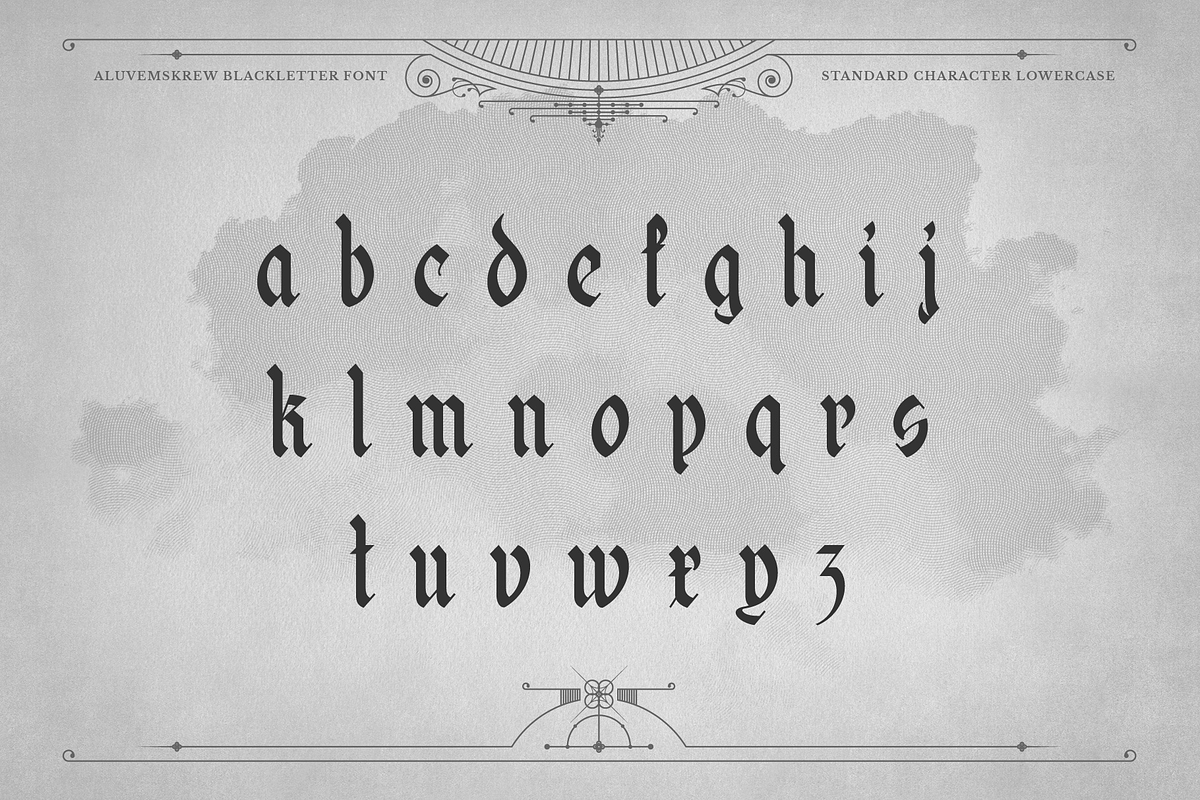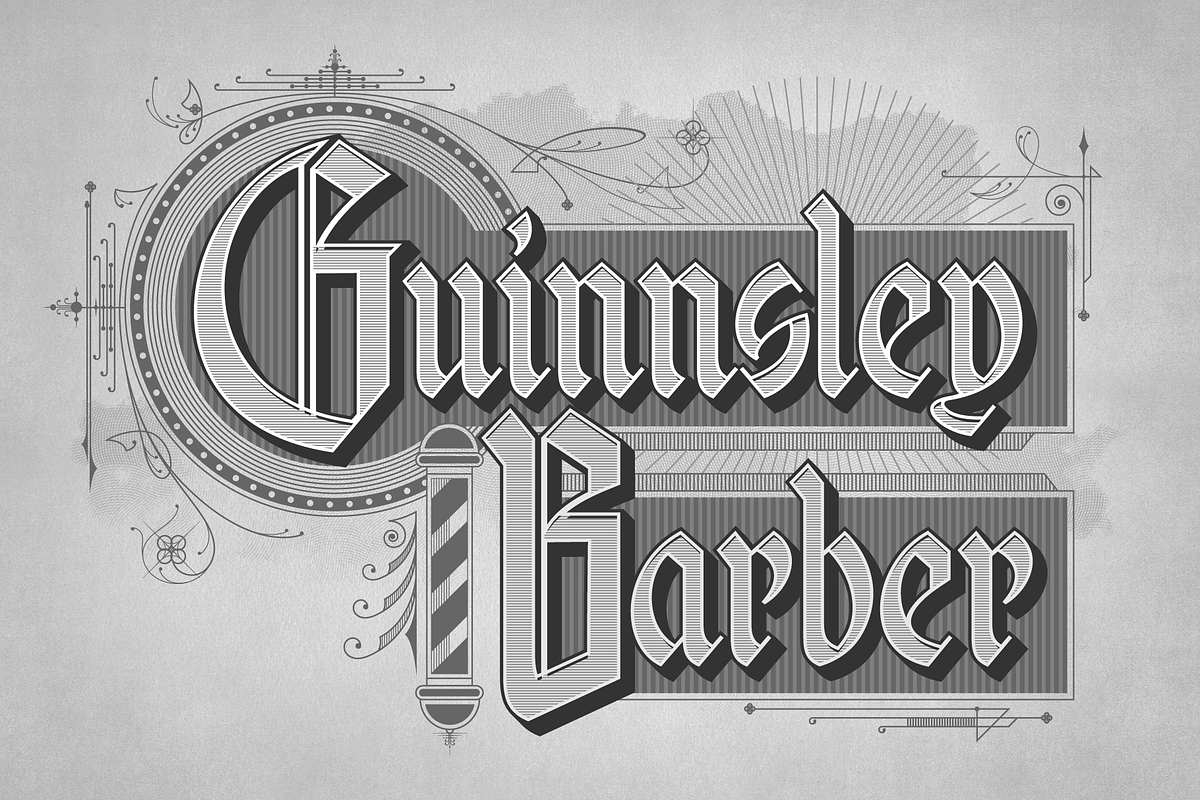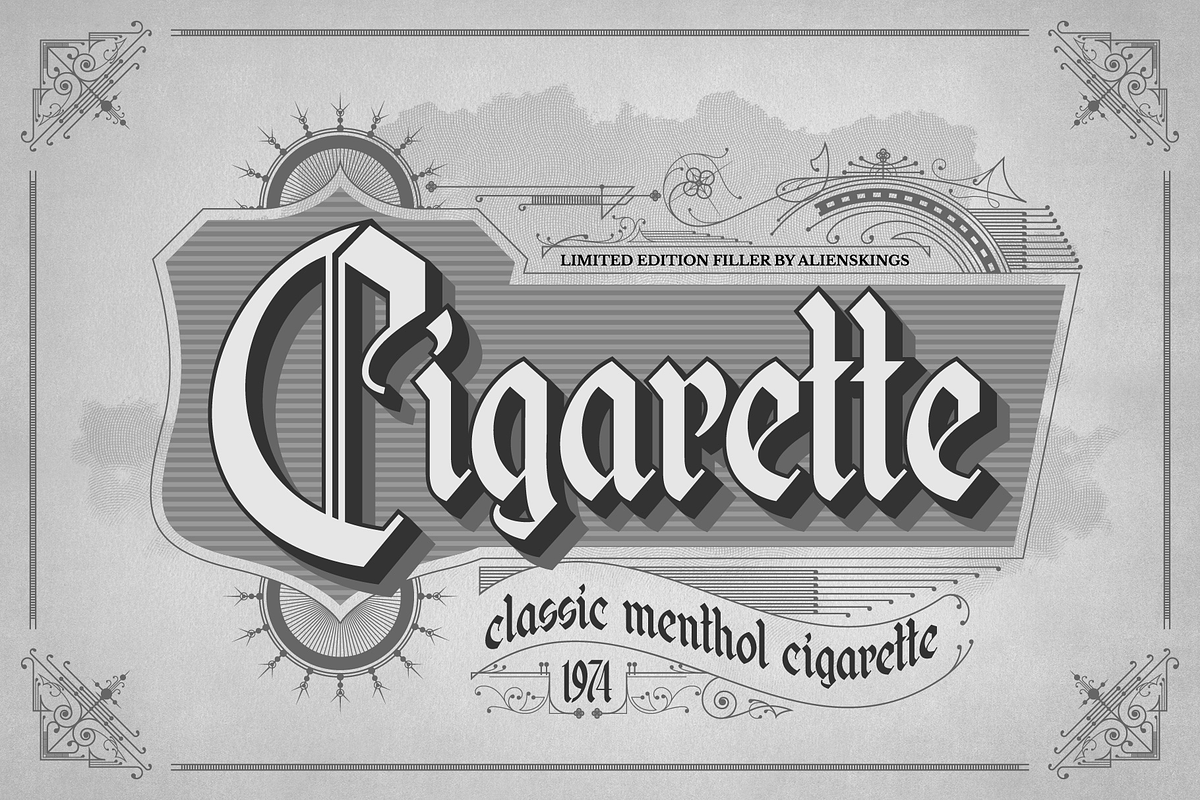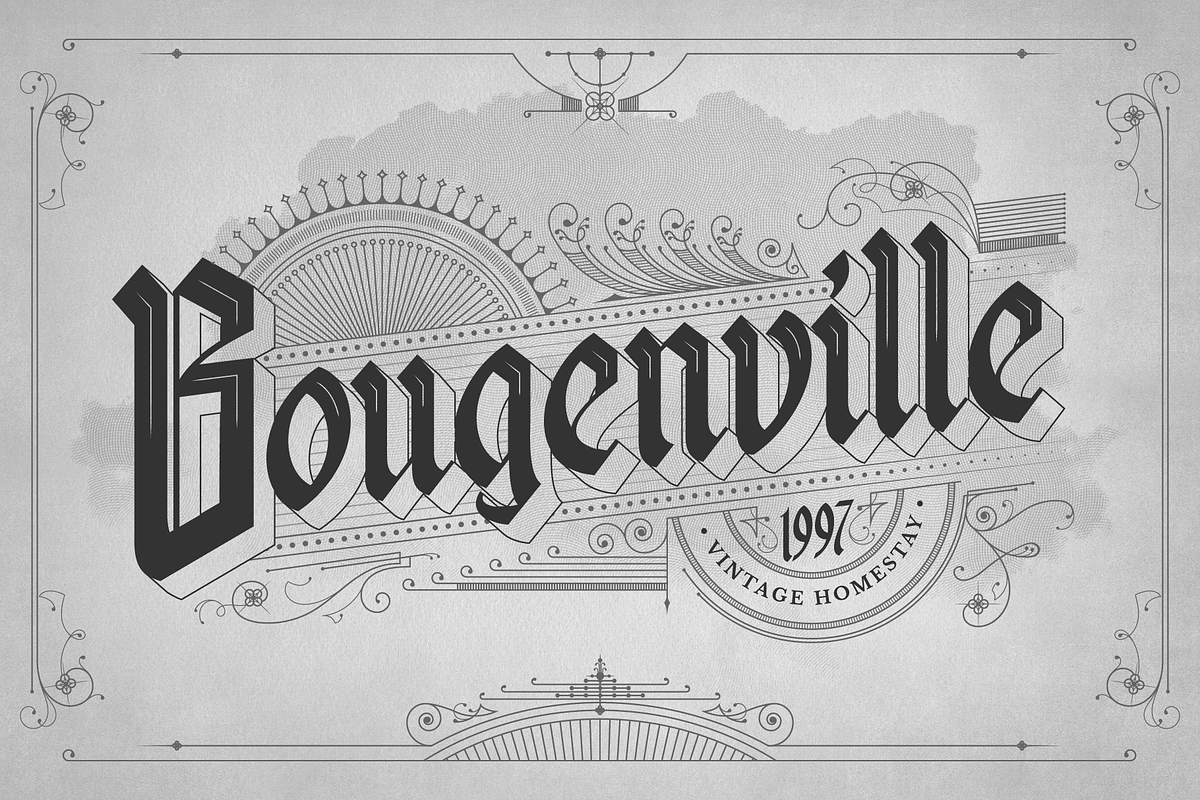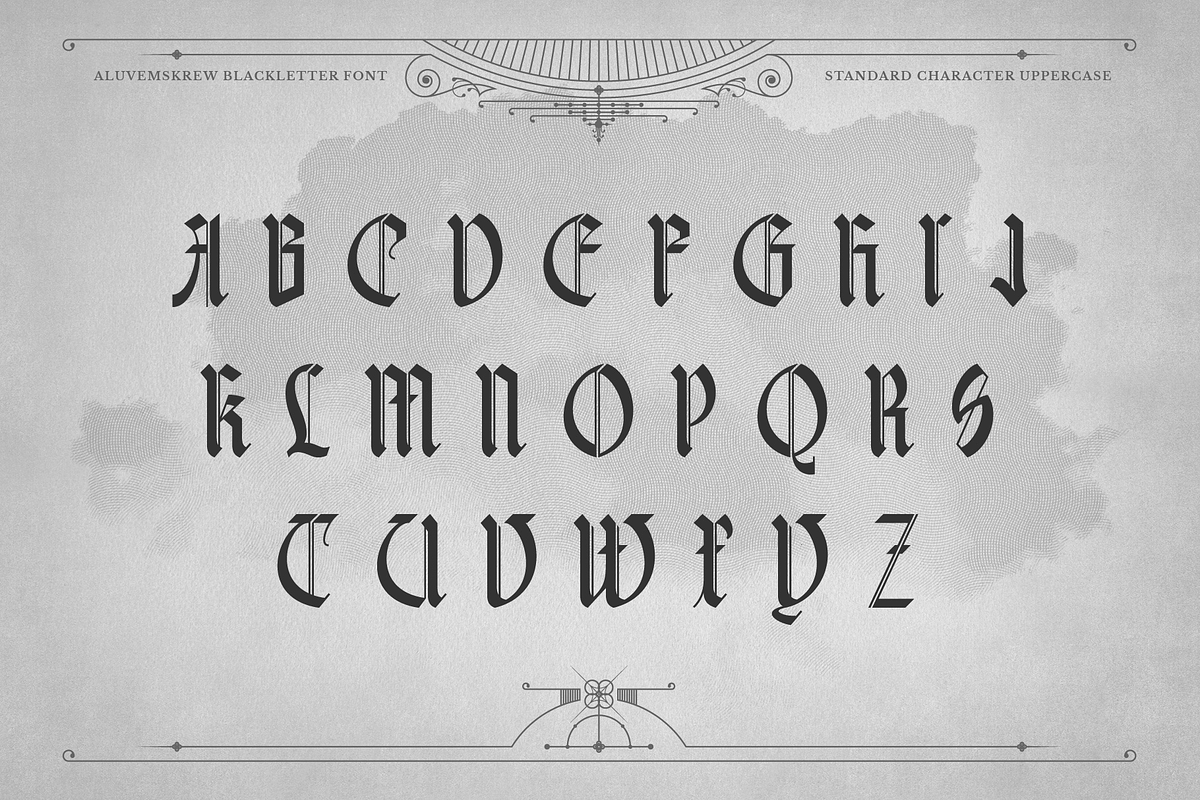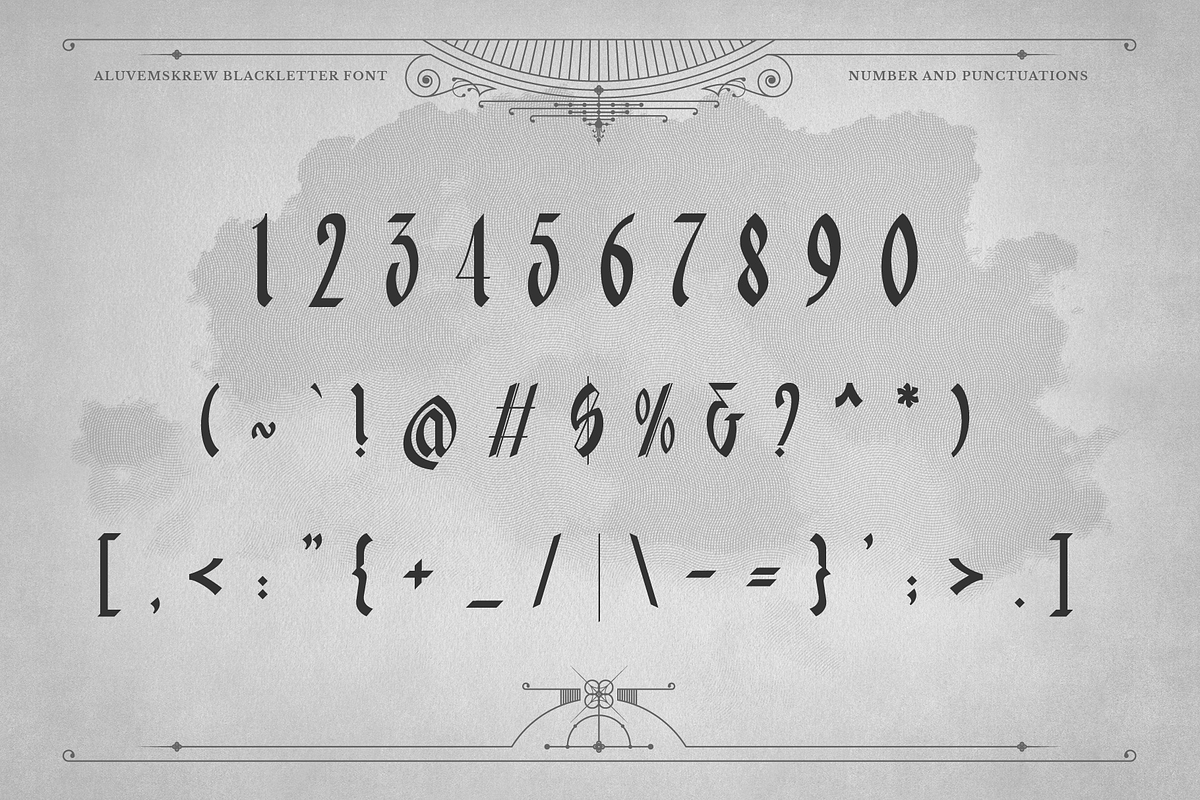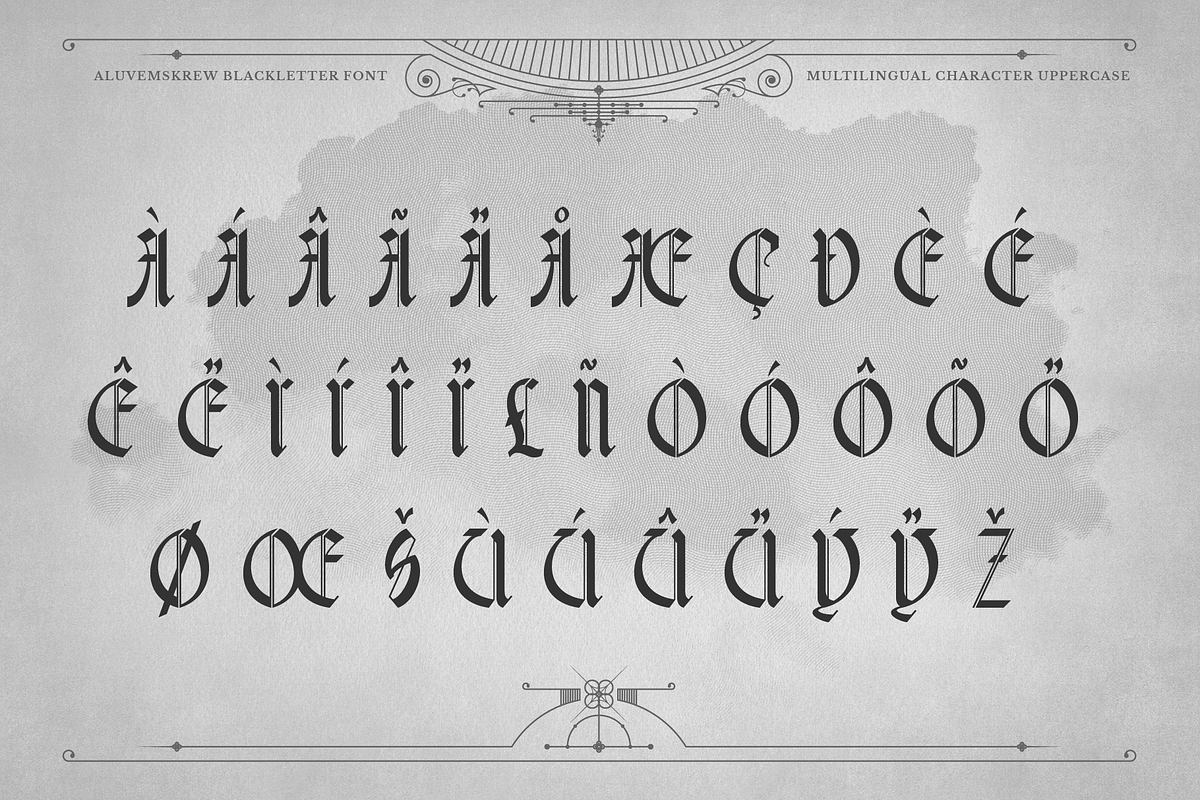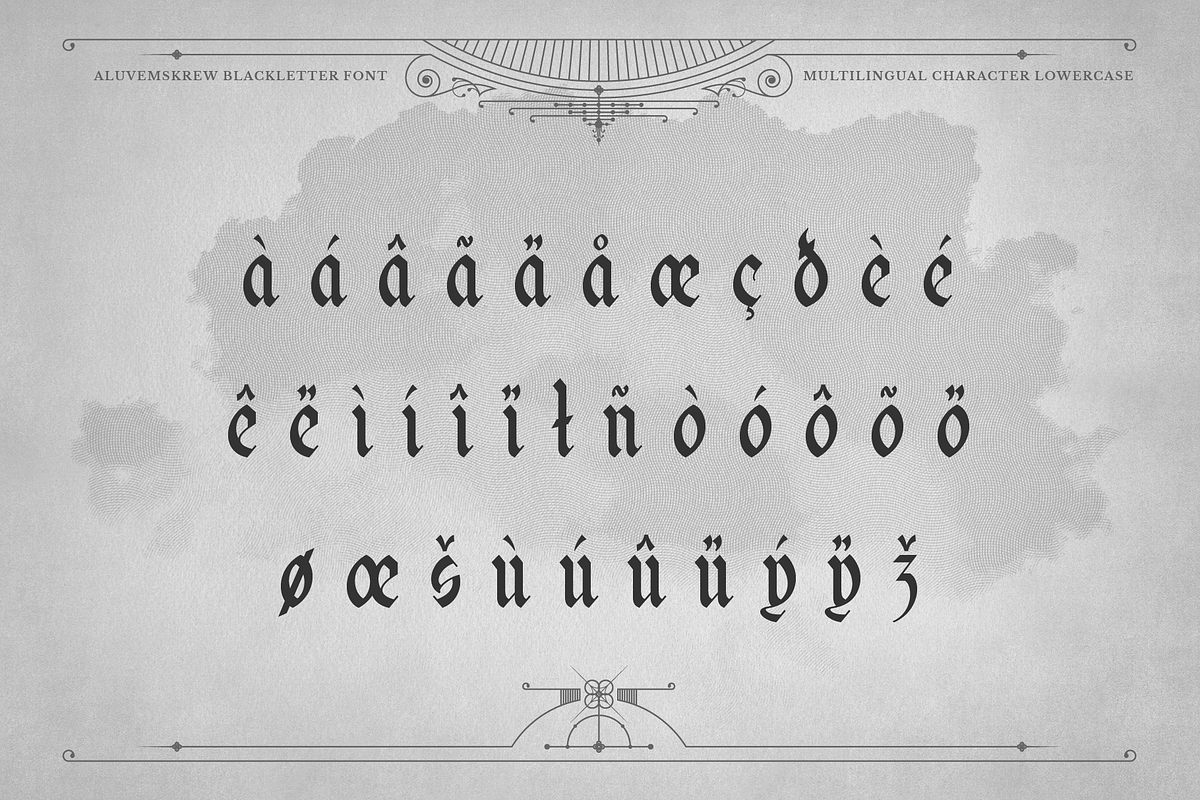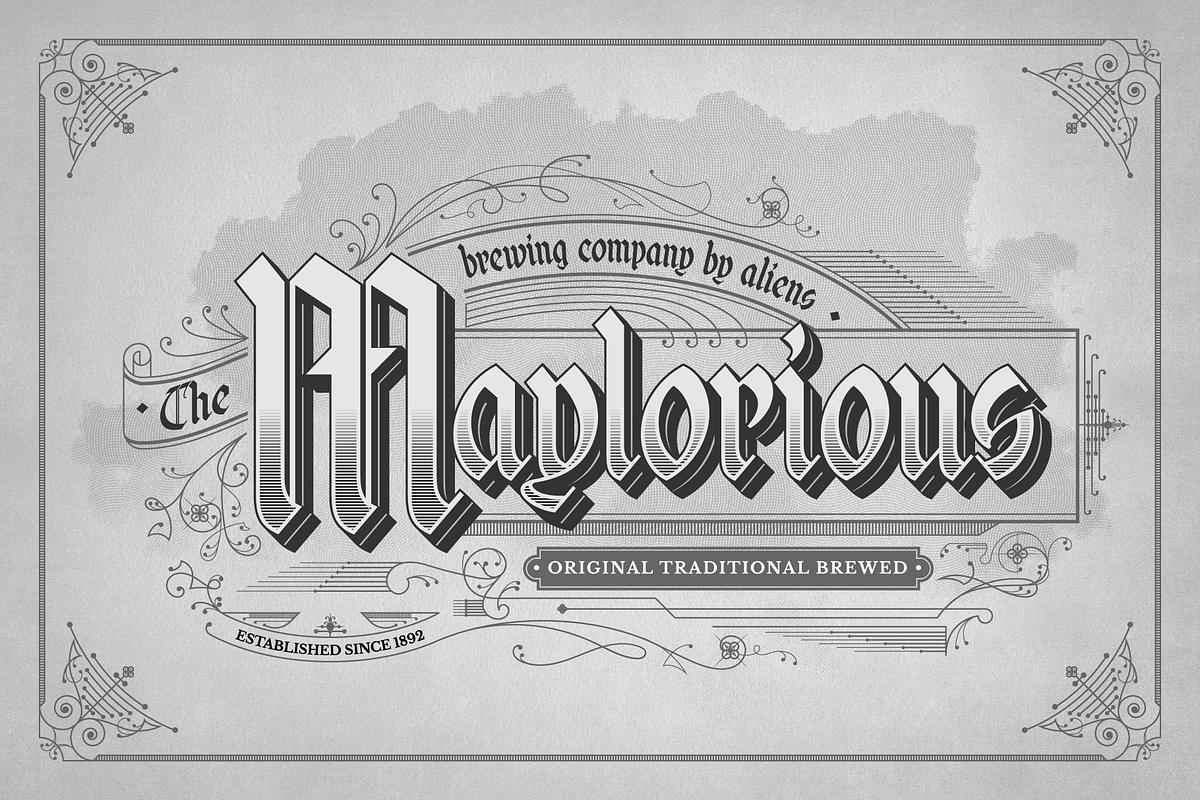
Aluvemskrew
ALUVEMSKREW
Aluvemskrew is a fairly simple Blackletter font, not too many strokes or ornaments. The font is clean enough so that it has better legibility than other Blackletters. Even so, this font still has a vintage style so it is suitable for creating classic or retro designs, such as for liquor branding, studio tattoos or classic motorcycles.